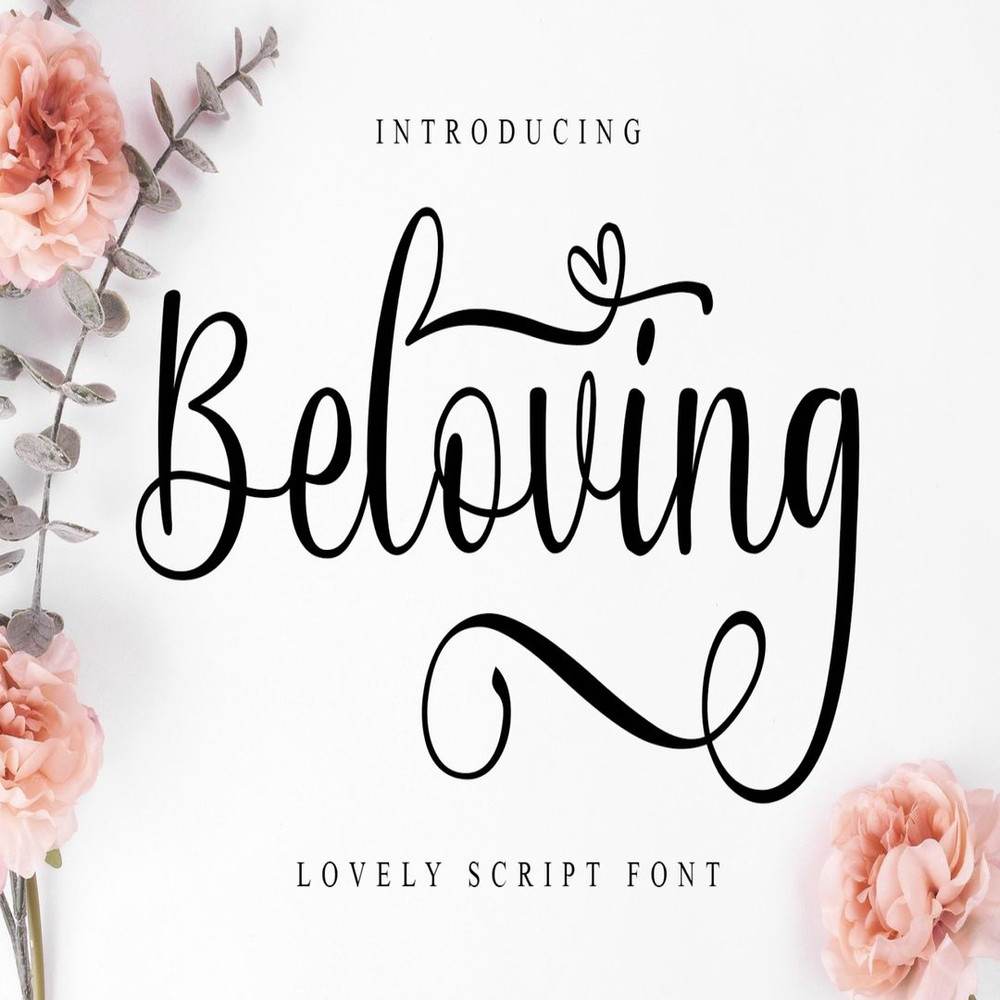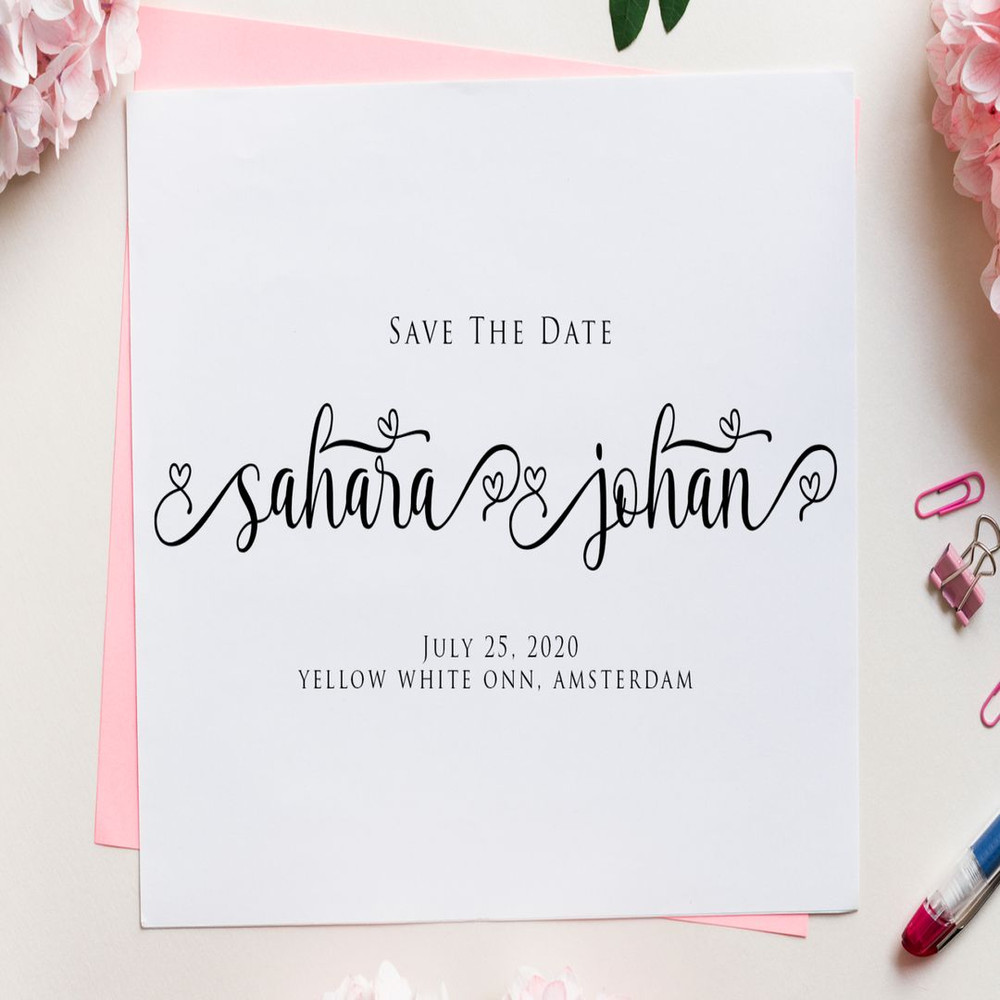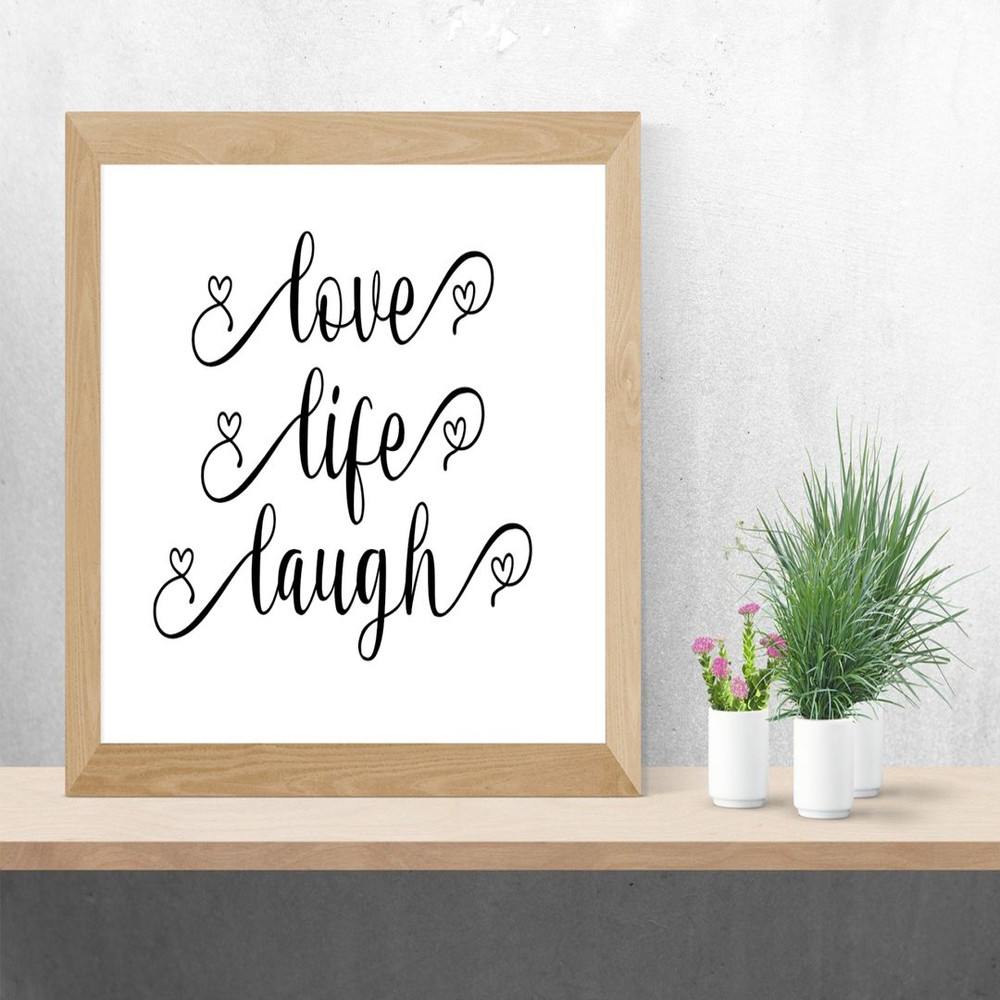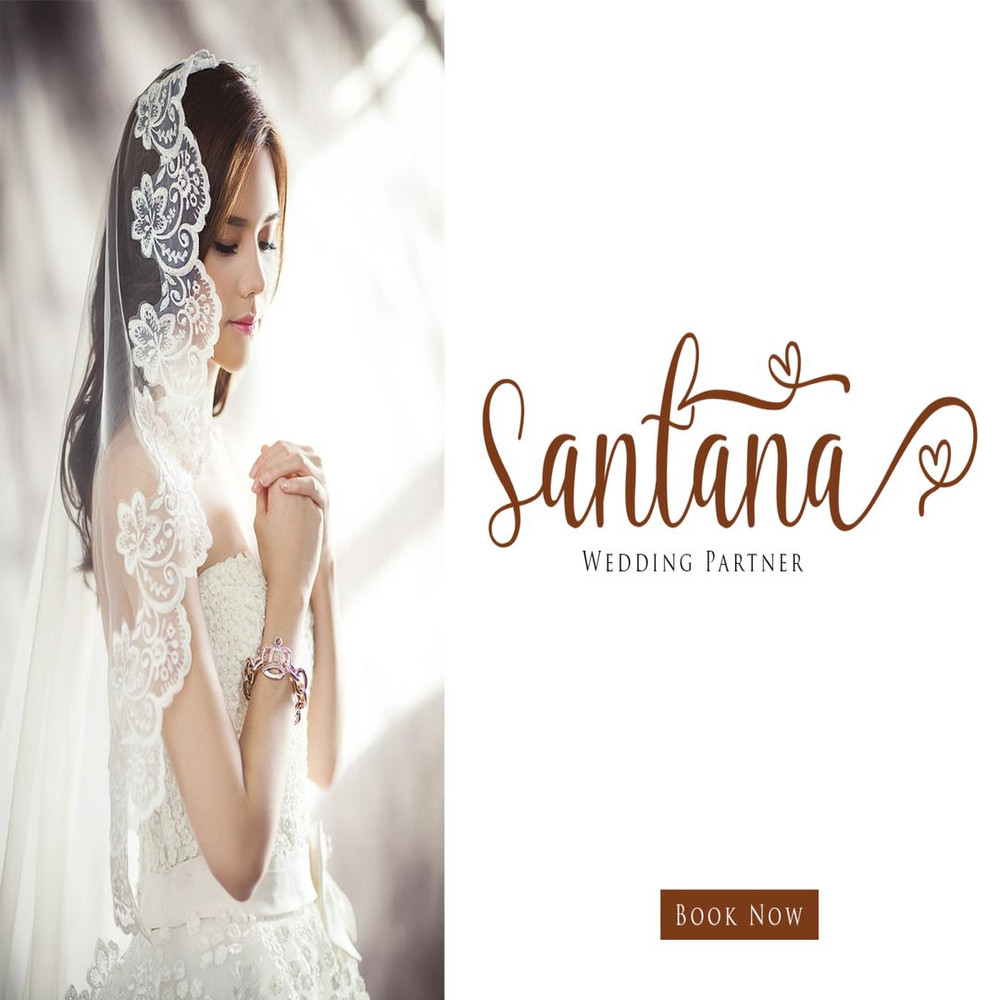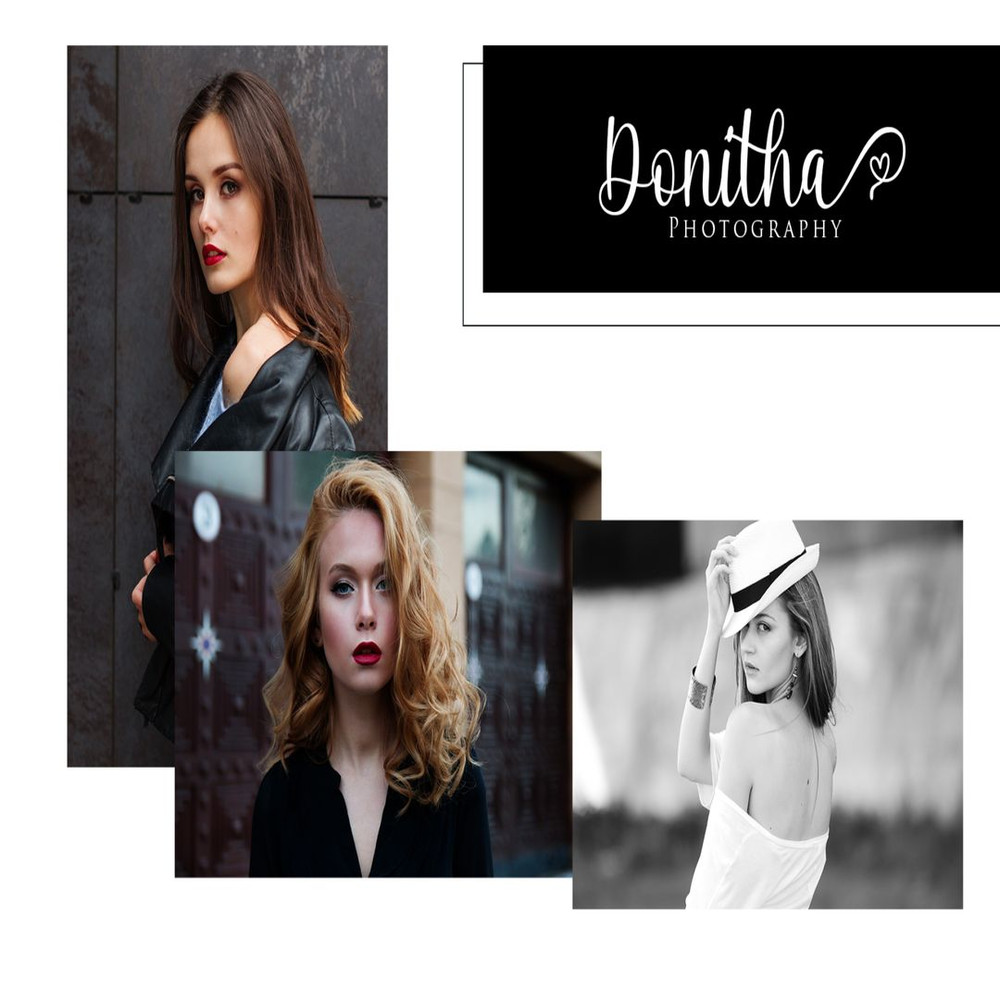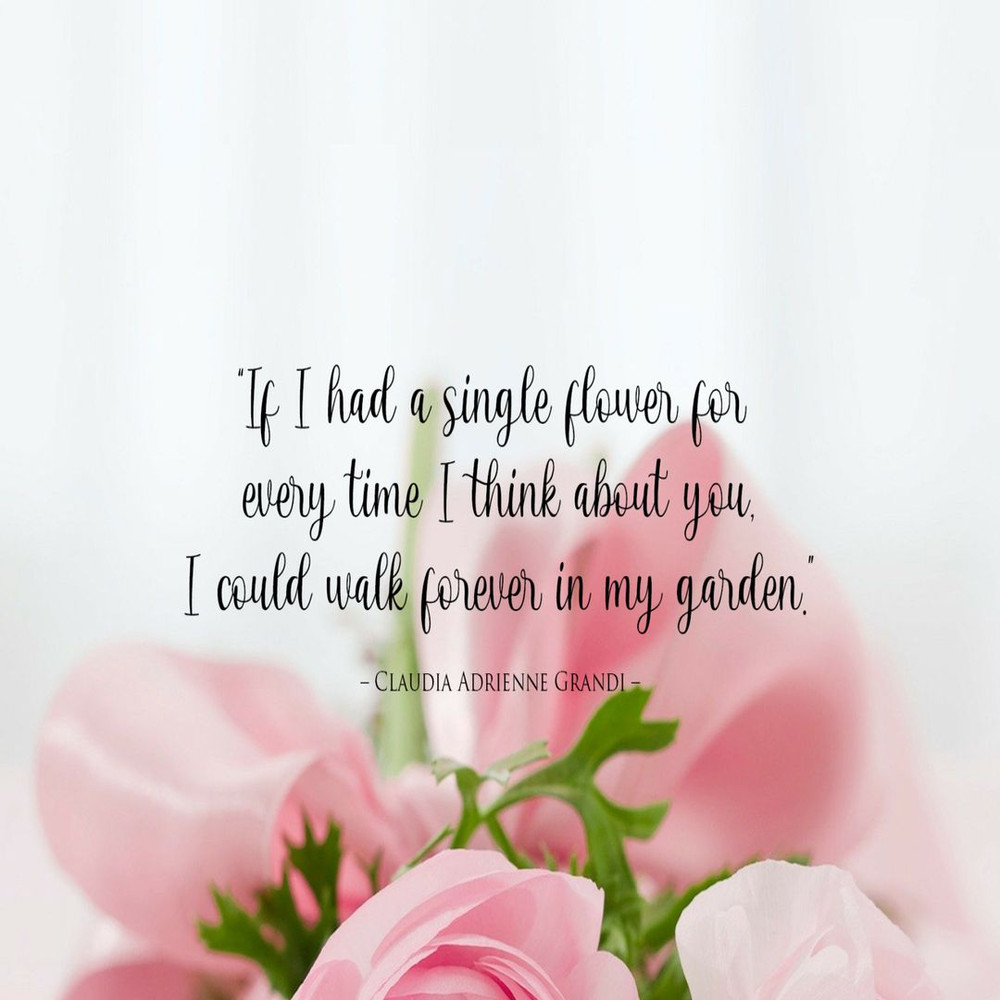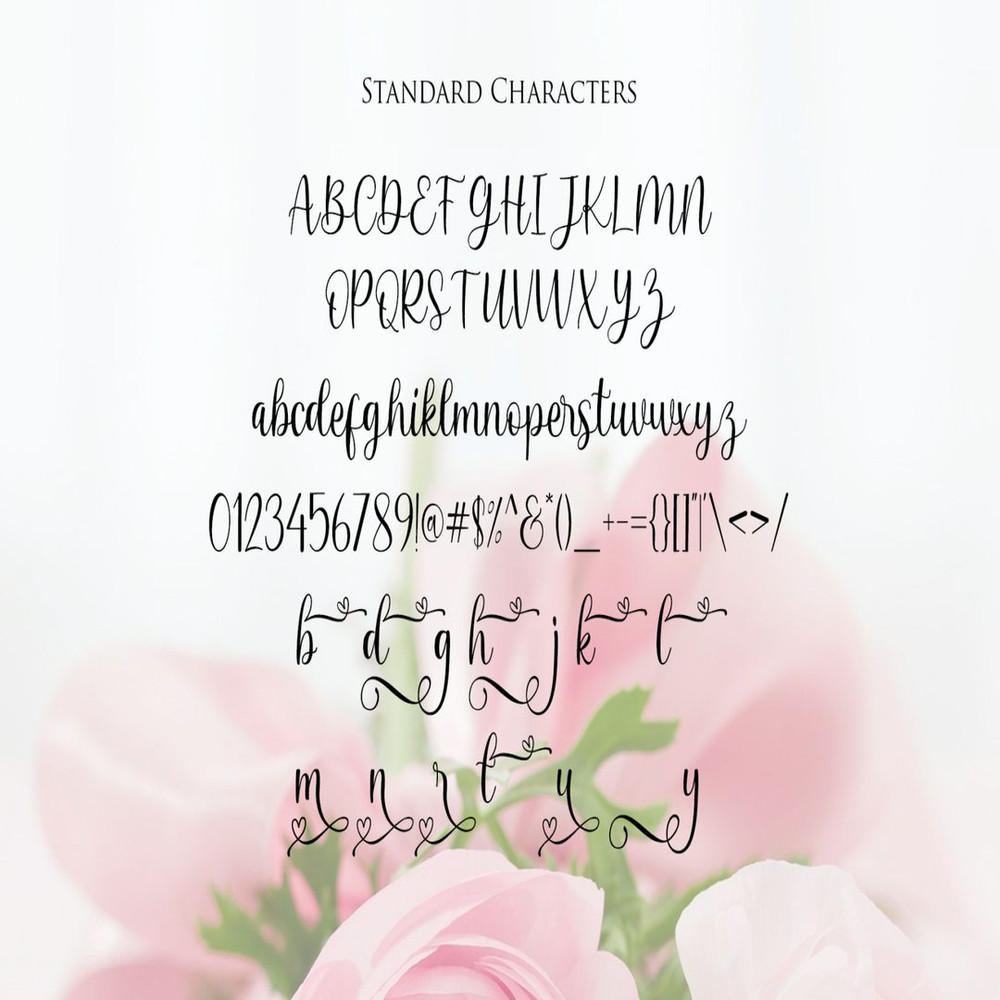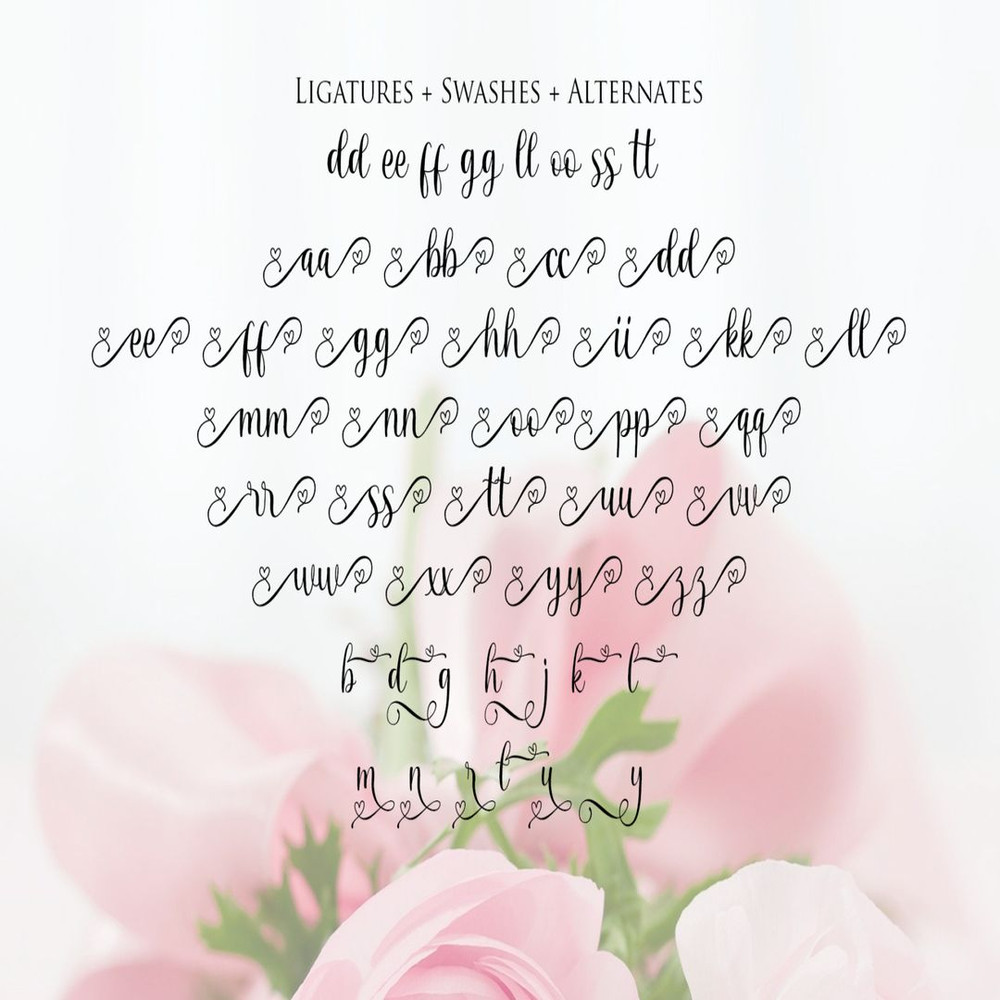
Beloving is a fun and charming font with gorgeous swashes. It evokes the look and feel of traditional calligraphy, and will elevate any craft project in an instant.